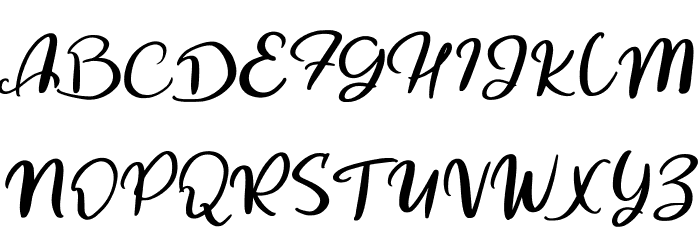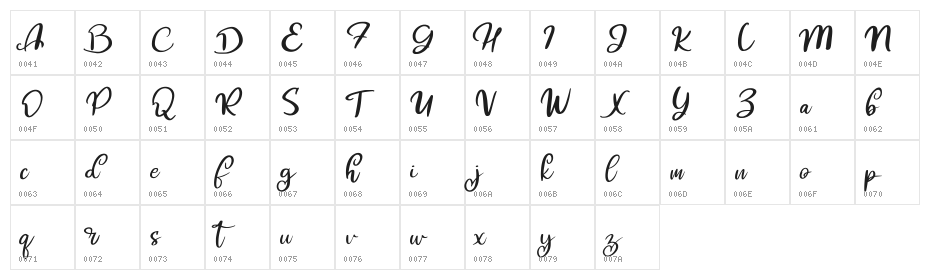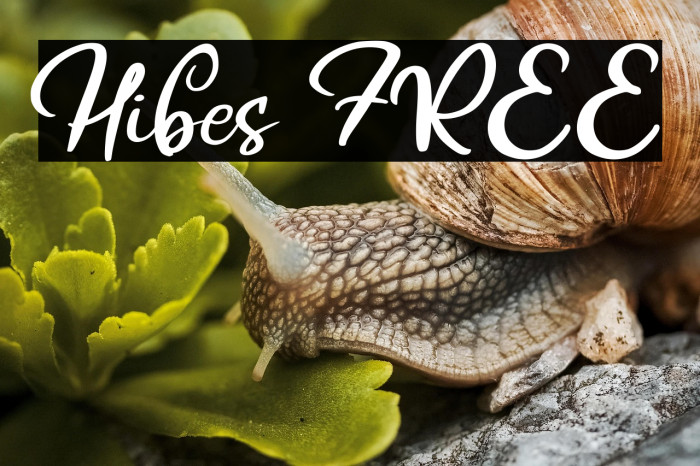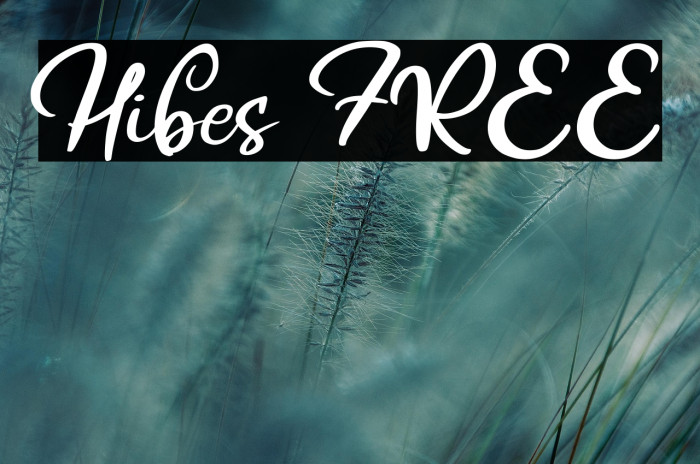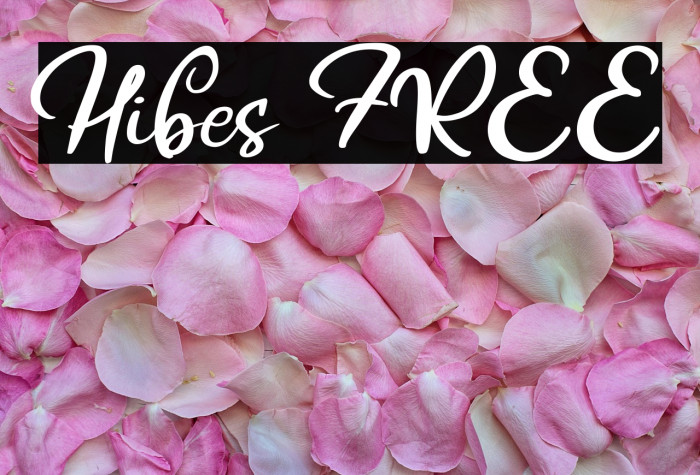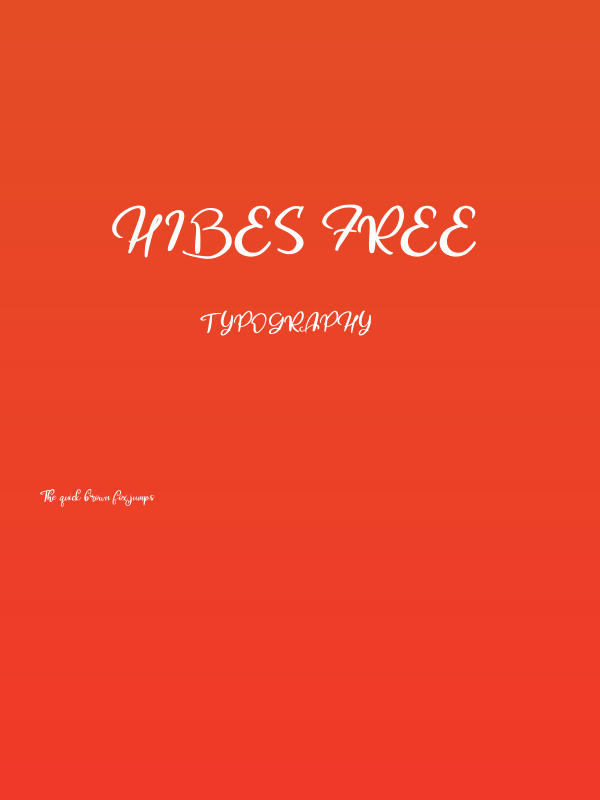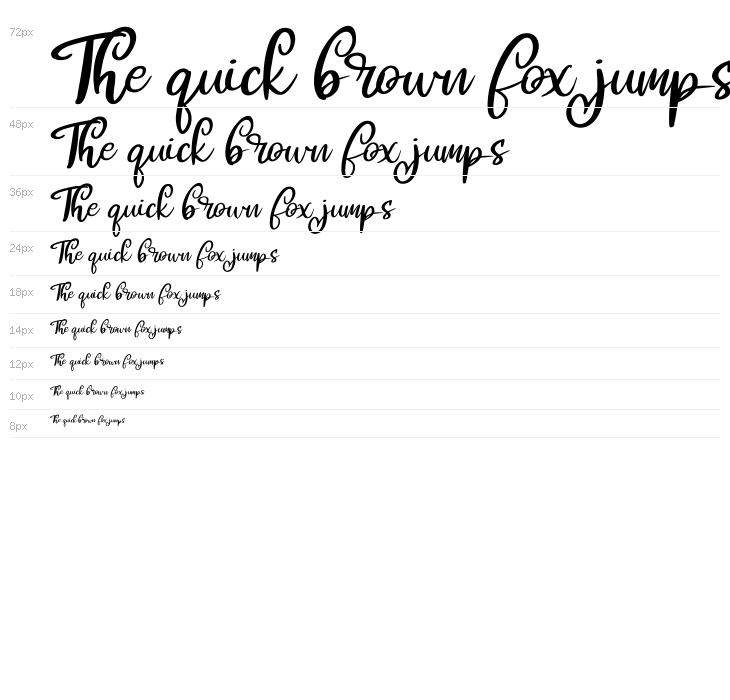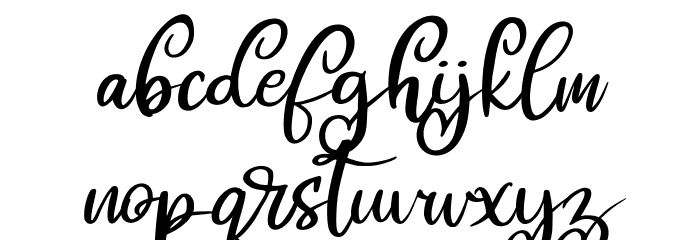
Hibes FREE Font
Hibes FREE Description
This font features an elegant and flowing script style, characterized by its smooth, cursive strokes and graceful curves. The uppercase letters are bold and prominent, with a slight slant that adds a dynamic feel. The lowercase letters maintain a consistent flow, connecting seamlessly in a way that mimics natural handwriting. The font's overall appearance is sophisticated and artistic, making it suitable for projects that require a touch of elegance and creativity. Its decorative nature is enhanced by the varying thickness in the strokes, which adds depth and interest to the text.
| Proposed Projects | Ideal for wedding invitations, greeting cards, branding, and elegant logos. |